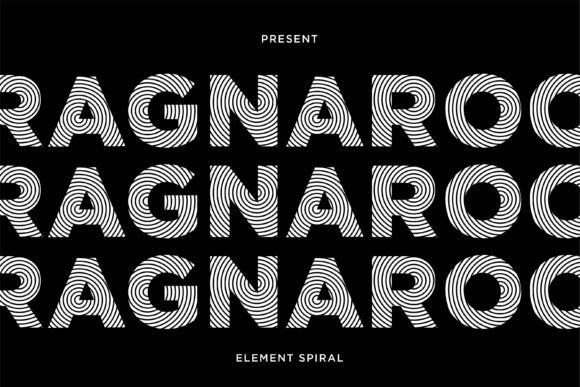
Step into the realm of typography and unveil the Ragnaroo Font, a revolutionary sans-based display font that will propel your designs to the forefront of innovation. With its sleek and modern aesthetic, Ragnaroo redefines creativity, presenting endless possibilities for your artistic expressions. Immerse yourself in a world where imagination knows no bounds, and your designs take on a life of their own.
Ragnaroo's versatility allows it to seamlessly adapt to any project, whether it's a captivating poster, an alluring website, or a resume that commands attention. Its clean lines and crisp edges evoke a sense of sophistication, while its dynamic curves add a touch of playfulness, making it the perfect choice for those seeking to make a statement.
With Ragnaroo, the ordinary becomes extraordinary. Transform your words into captivating headlines, craft logos that leave a lasting impression, and design brochures that captivate your audience. Let your creativity soar as you explore the limitless possibilities that this remarkable font offers.
But Ragnaroo is more than just a font; it's an experience. It's a gateway to a world where your imagination can run wild, where your designs come to life with a vibrancy that will astound you. Embrace Ragnaroo and embark on a journey of creative expression that will leave you breathless.
Don't settle for ordinary fonts that blend into the background. Choose Ragnaroo and let your designs shine brighter than ever before. Unleash your creativity, redefine your style, and step into a world where typography becomes art.